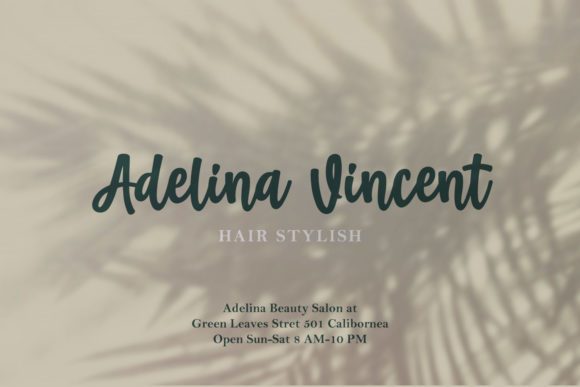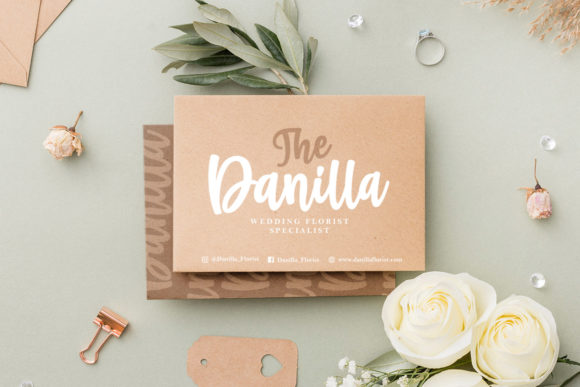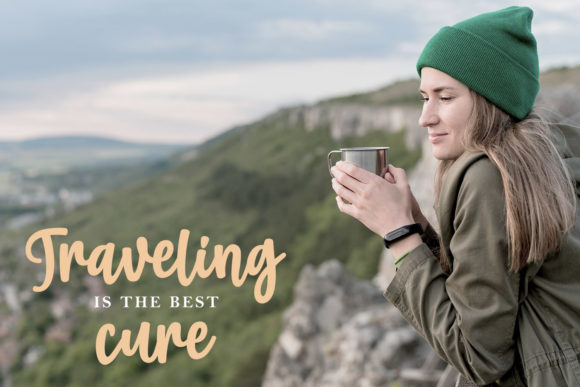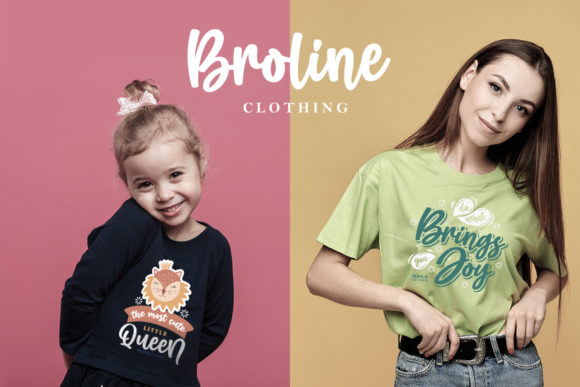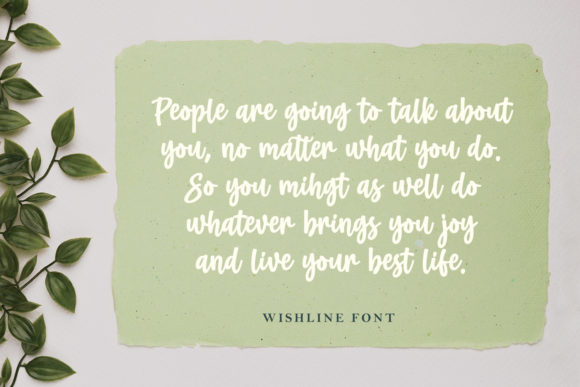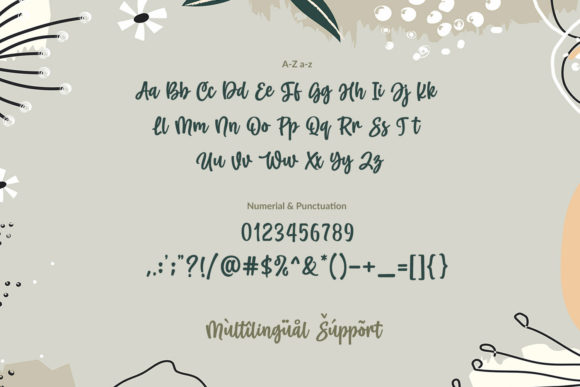
Wishline Font
Wishline is a cute and quirky handwritten font. Fall in love with its incredibly versatile style and use it to create gorgeous wedding invitations, beautiful stationary art, eye-catching social media posts, and much more!